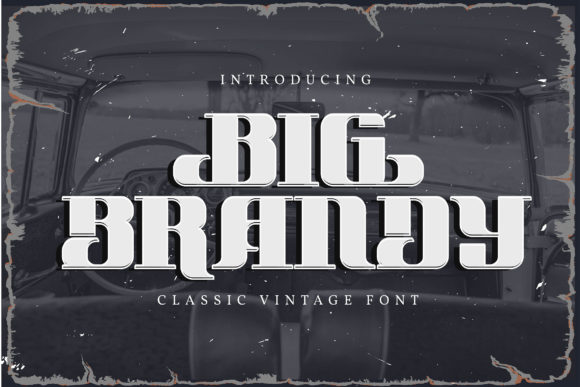
The Bold and Beautiful Big Brandy Font: A Designer’s Dream
I’ll never forget the moment I stumbled upon the perfect font for a project. I was working on a vintage-inspired poster for a client’s wine tasting event, and I needed something that would make a statement. After hours of scrolling through font libraries, I finally found Big Brandy – a bold and retro-styled display font that instantly caught my eye. Its assertive personality and unique touch were exactly what I needed to elevate my design. In this article, I’ll share my experience with Big Brandy, its features, and how to make the most of it in your designs.
An Honest Review of Big Brandy
What I Love About Big Brandy
- ✨ Bold and attention-grabbing: Big Brandy is perfect for headlines, titles, and any design element that needs to stand out.
- ✅ Retro charm: The font’s vintage vibe adds a touch of nostalgia and sophistication to any design.
- 🌈 Versatile: Big Brandy works well with a variety of design styles, from modern to vintage, and can be used for both digital and print projects.
While Big Brandy is an amazing font, there are a few things to keep in mind:
- 🤔 Legibility at small sizes: Big Brandy is designed for display purposes, so it may not be the best choice for body text or small font sizes.
- ⚠️ Limited OpenType features: While Big Brandy has some great stylistic alternates, it may not have all the advanced OpenType features you’re used to.
The Story Behind Big Brandy
Big Brandy was designed by a talented type designer who’s passionate about creating unique and stylish fonts. Inspired by the classic typography of the 1950s and 60s, Big Brandy was crafted to bring a touch of retro glamour to modern designs. With its bold personality and versatile style, Big Brandy is perfect for designers, crafters, and creative hobbyists looking to add a statement font to their toolkit.
Q: What is Big Brandy font best used for?
A: Big Brandy is perfect for headlines, titles, and any design element that needs to stand out. It’s ideal for posters, flyers, brochures, and other marketing materials.
Q: Does Big Brandy have any special features?
A: Yes, Big Brandy has stylistic alternates, glyphs, and other OpenType features that allow you to customize your text and add visual interest to your designs.